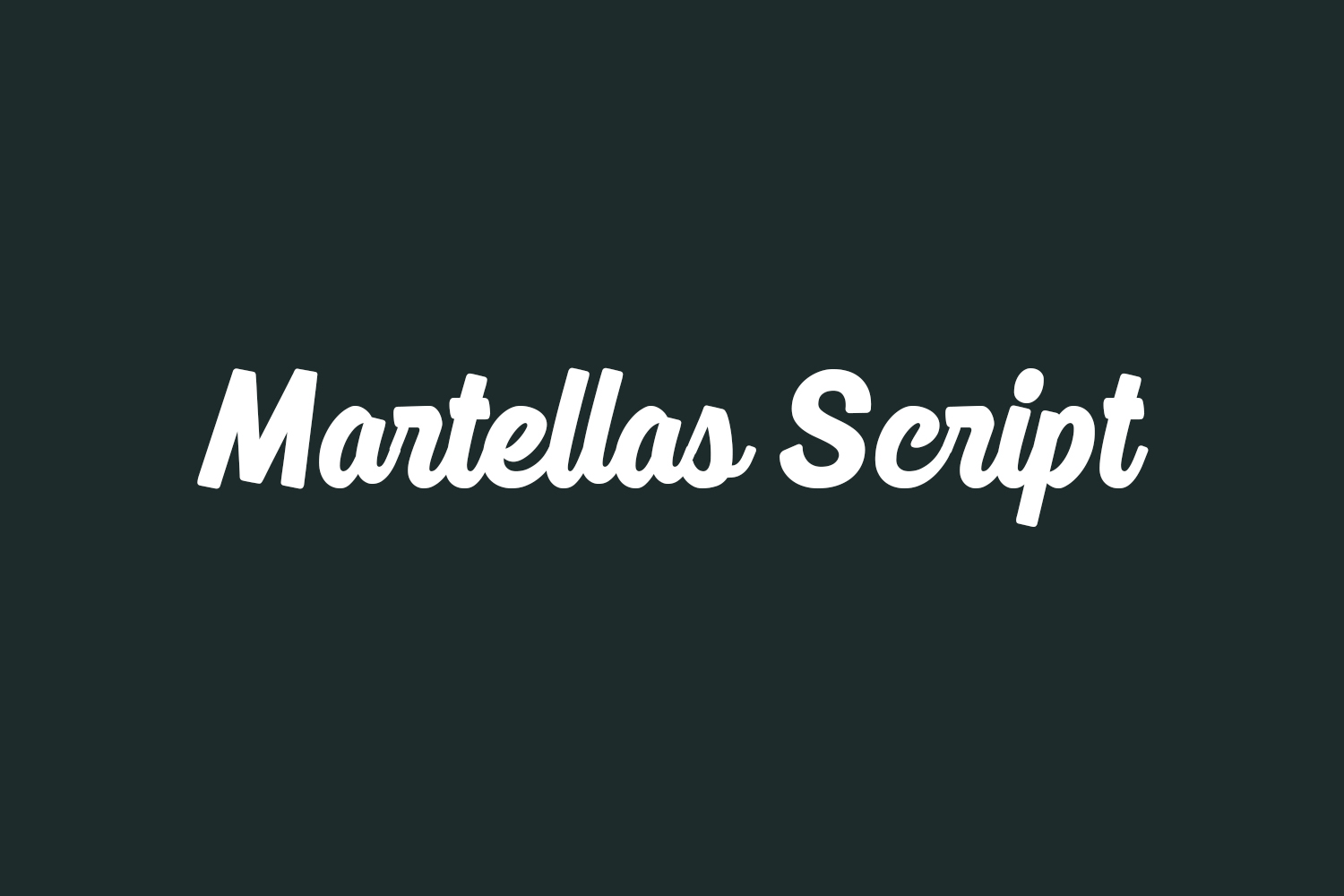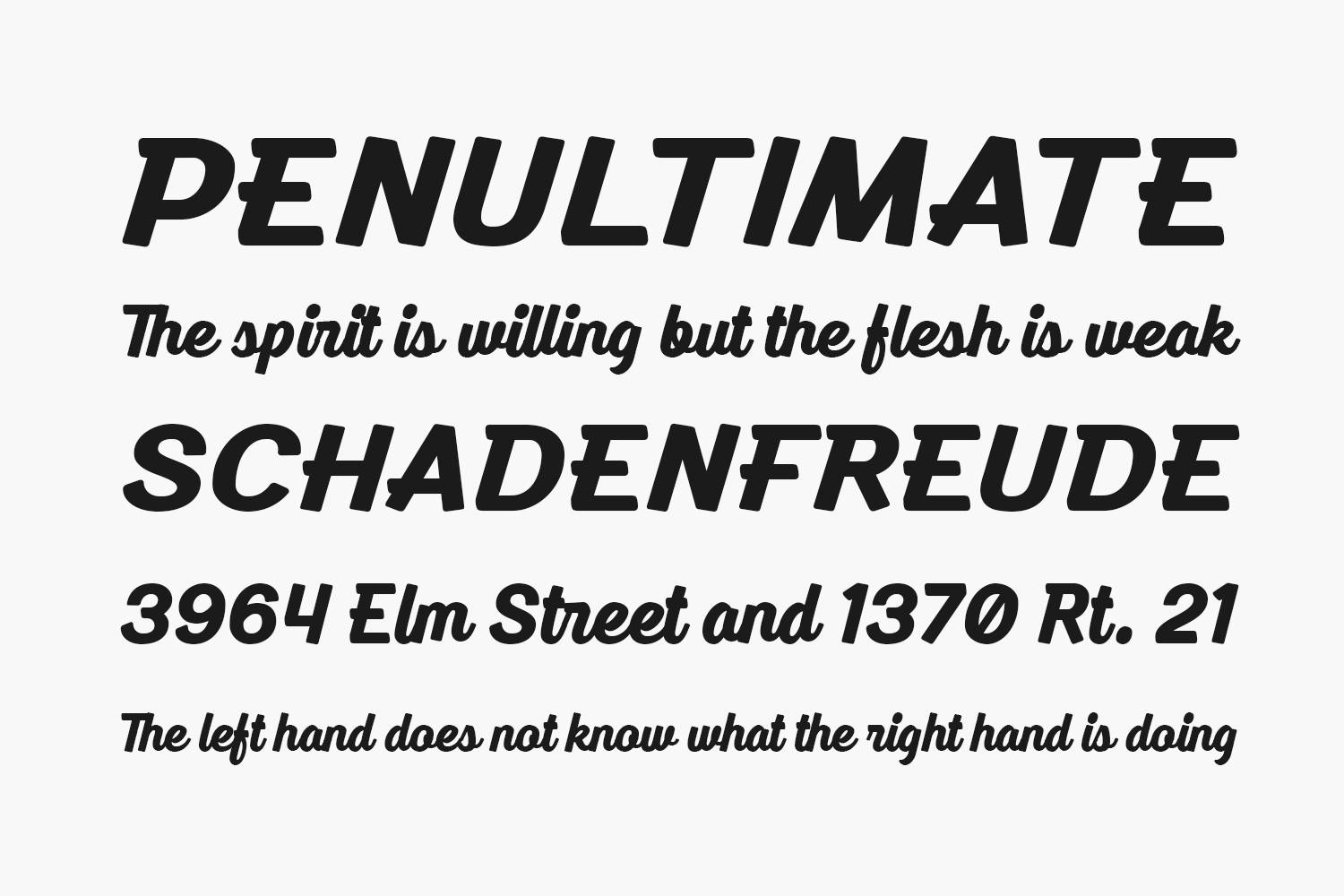
Martellas Script Free Font is a stylish and retro-inspired family font. This font reads as strong, confident, and dynamic and can add tons of stylish character to your designs.
Designed by Edignwn Type